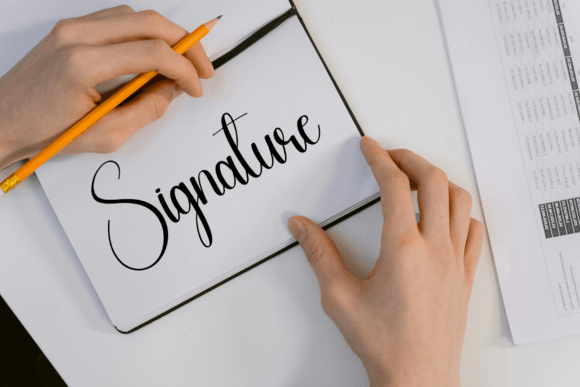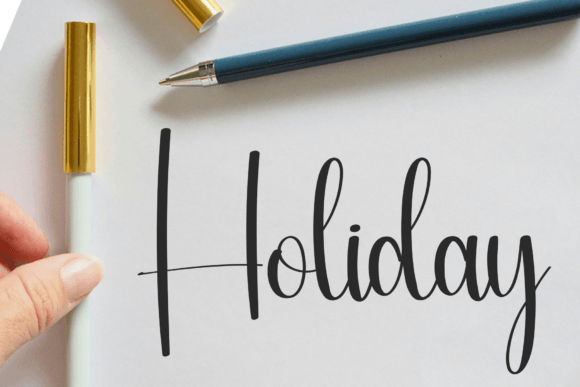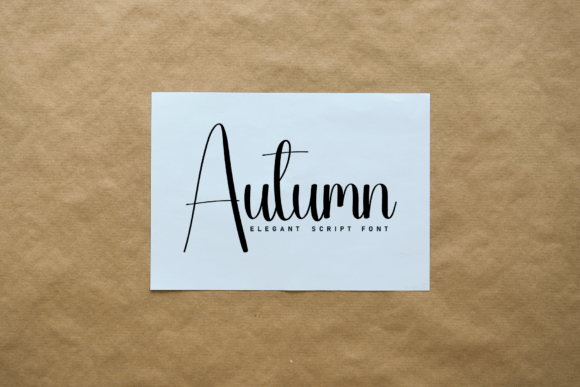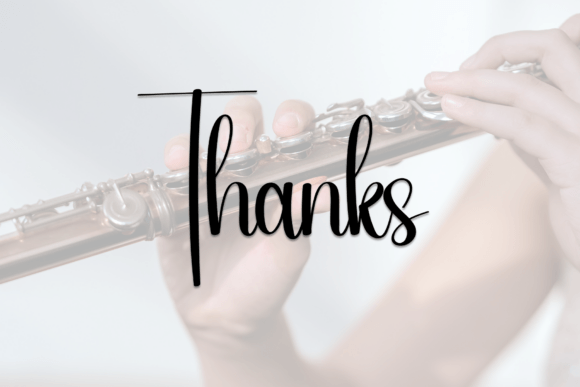
Introduction to Melody Romantic Font
There’s nothing quite like the thrill of creating something from scratch, watching your ideas come to life on the page. For designers, this moment is the culmination of hours, sometimes days, of brainstorming, sketching, and refining. But what makes a design truly special is the font that brings it all together. This is where the Melody Romantic Font comes in – a handwritten gem that adds a touch of elegance and sophistication to any creative project.
With its relaxed, sporty feel, the Melody Romantic Font is perfect for branding, logos, wedding supplies, and greeting cards. Its luxurious yet casual vibe makes it an instant favorite among designers looking to elevate their designs without sacrificing a sense of approachability. Whether you’re working on a high-end marketing campaign or a simple lookbook, this font is sure to make your design stand out.
Key Features of Melody Romantic Font
- High-quality, elegant design perfect for romantic and creative projects, making it a valuable design resource.
- Features a transparent background, giving users the flexibility to customize and pair the font with any design element.
- Designed with a high resolution, ensuring crisp and clear text rendering, ideal for print and digital applications.
- Unique characteristics include delicate flourishes and intricate details, adding a touch of romance and sophistication to any creative project.
Honest Review: Melody Romantic Font
As a designer, I’m always on the lookout for high-quality design resources to elevate my creative projects. Recently, I stumbled upon the Melody Romantic Font, and I’m excited to share my honest review with you.
What works well: ✨ The Melody Romantic Font is incredibly versatile, making it perfect for a wide range of creative projects, from wedding invitations to social media graphics. The font’s elegant and romantic feel adds a touch of sophistication to any design. Additionally, the font files include a transparent background option, which is a huge plus for designers who want to add some extra flair to their designs.
Overall, I’m impressed with the Melody Romantic Font, and I think it’s a great addition to any designer’s toolkit. With its high quality and versatility, it’s definitely worth checking out – especially for those looking for a beautiful, free font for their creative projects.
- High-quality, elegant design
- Clear and legible font characters
Tips for Getting the Most Out of the Melody Romantic Font
Use the Melody Romantic Font in conjunction with a transparent background to create a beautiful, high-quality design. Experiment with different font sizes and colors to find the perfect combination for your creative project.
The Melody Romantic Font is perfect for wedding invitations, baby shower invitations, and other romantic-themed designs. It’s also great for creating a whimsical, vintage-inspired look in your design.